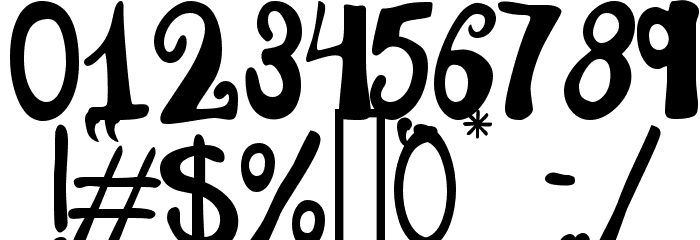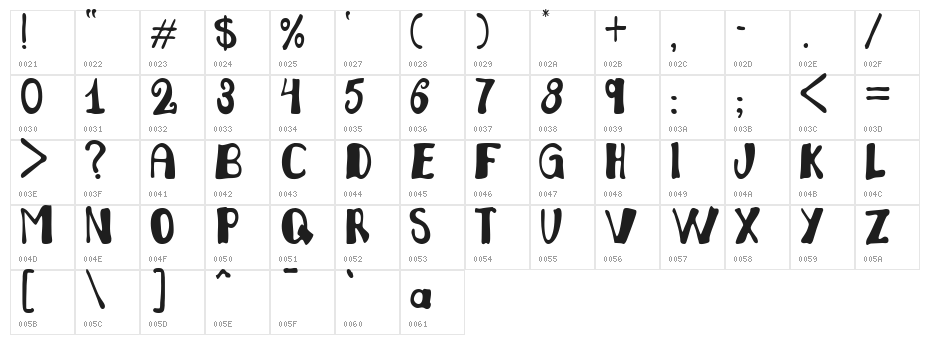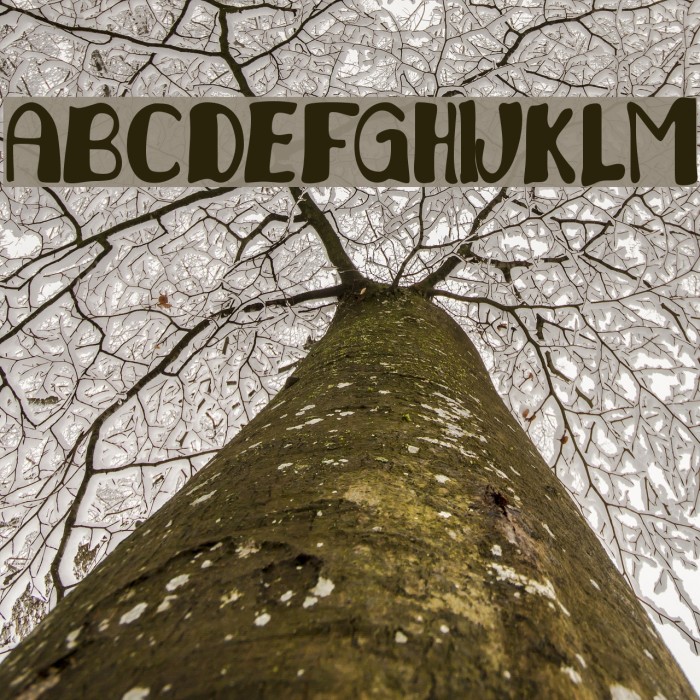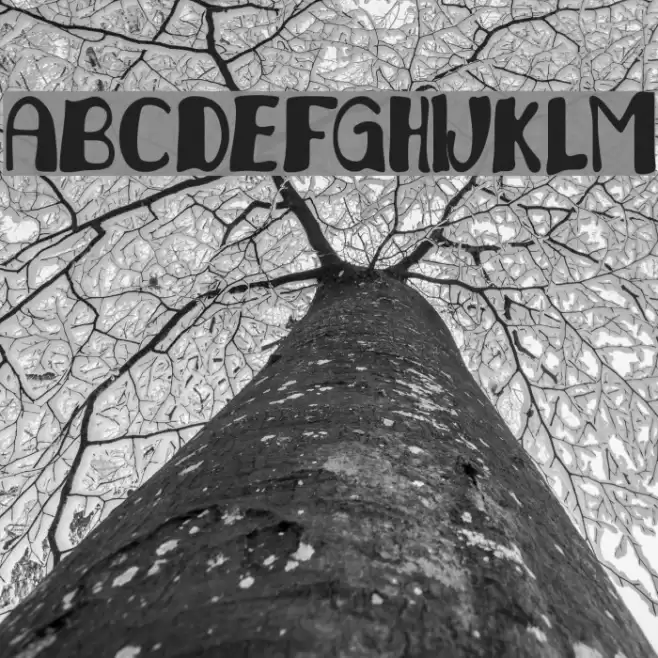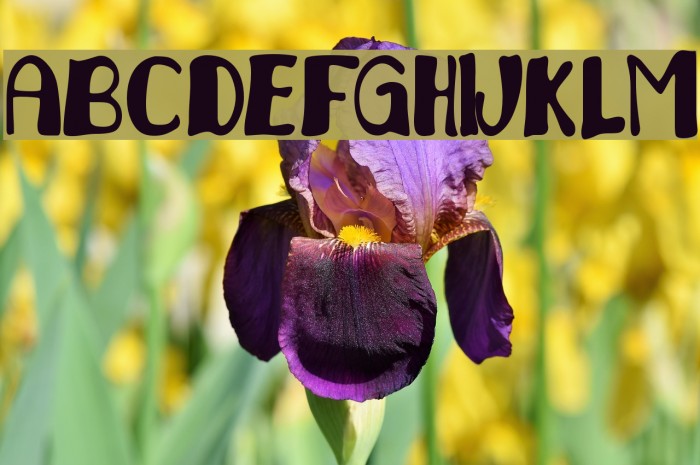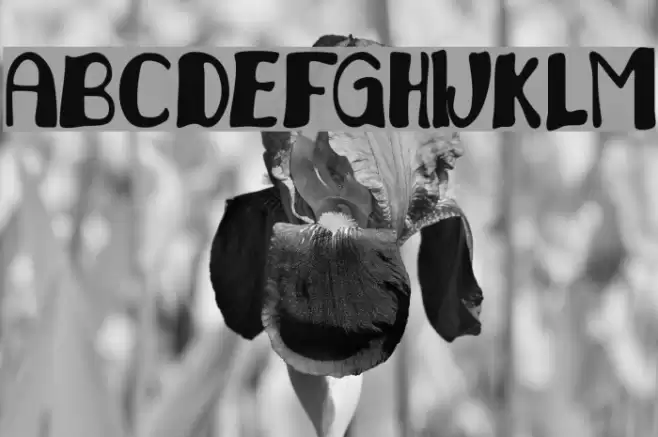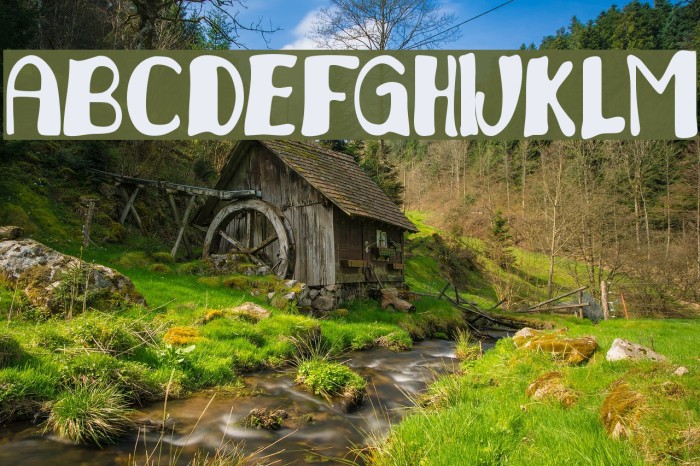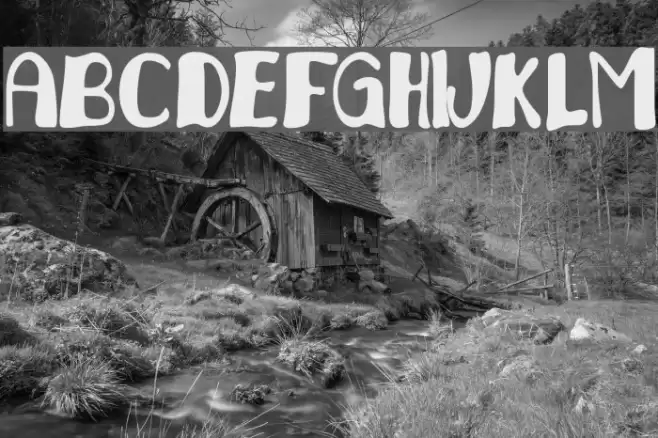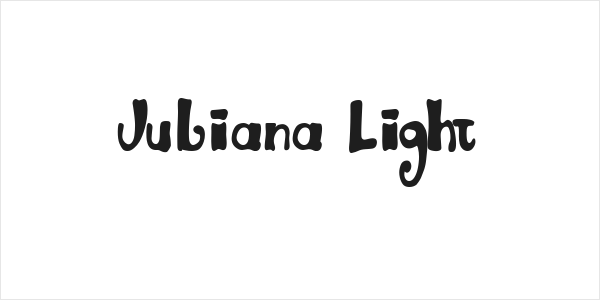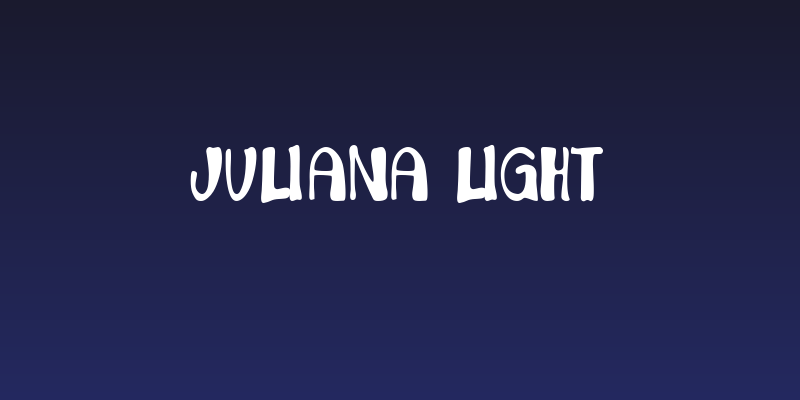
Juliana Light Font
Juliana Light Description
This font features a playful and whimsical style, characterized by its bold and irregular letterforms. The uppercase letters have a unique, hand-drawn appearance with varying stroke thickness, giving them a lively and dynamic feel. The lowercase letters continue this theme, with some characters exhibiting exaggerated curves and loops. The numerals are equally distinctive, maintaining the font's overall quirky aesthetic. Special characters are creatively designed, adding to the font's charm. This font's informal and artistic nature makes it suitable for projects that require a fun and engaging visual impact.
| Proposed Projects | Ideal for children's books, playful branding, creative posters, and artistic invitations. |